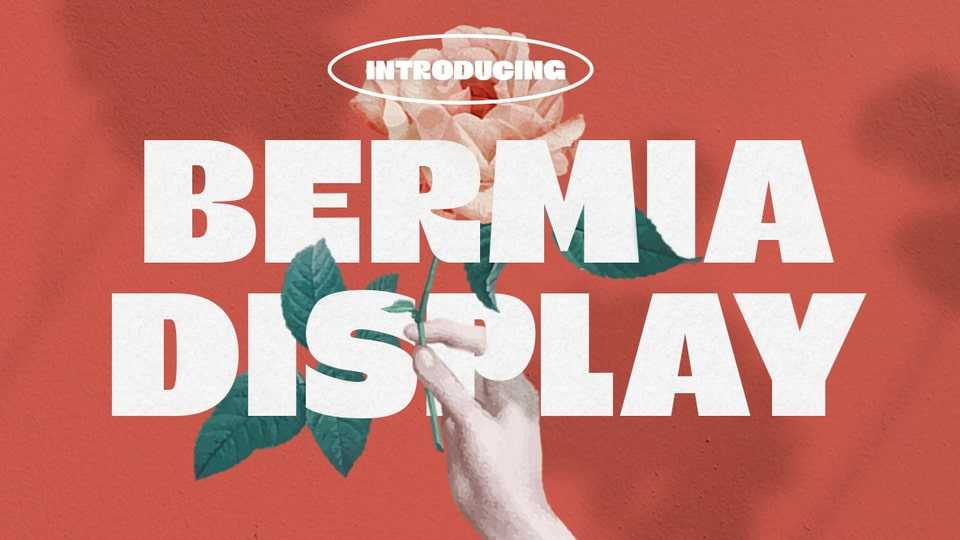
Download Bermia font, a bold and elegant display typeface suitable for branding, posters, logos, and advertisements. Bermia font ensures that messages conveyed through text remain easy to read and understand.
Designer: Yukita Creative